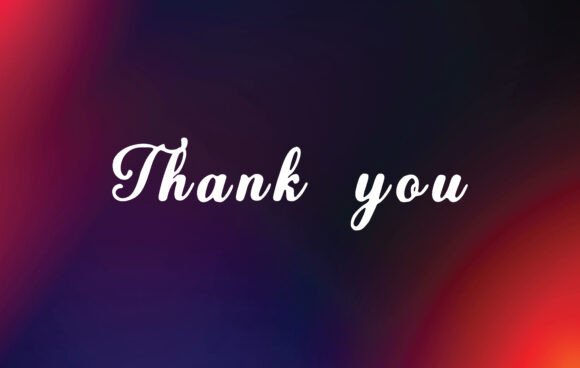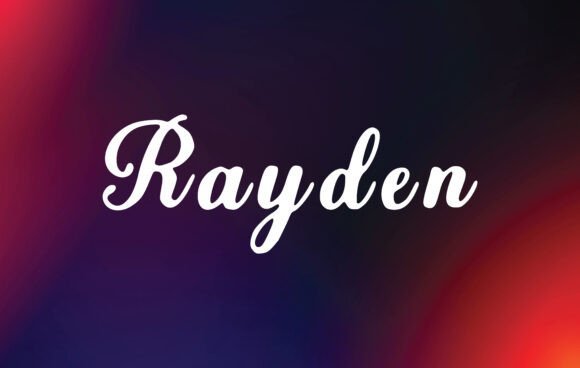
Introduction to Rayden Font
Rayden is a lovely and beautiful handwritten font.
Why Choose Rayden Font?
Rayden Font offers exceptional quality and versatility, making it a valuable addition to your design toolkit. Whether you’re creating for personal projects or commercial use, Rayden Font delivers professional results.